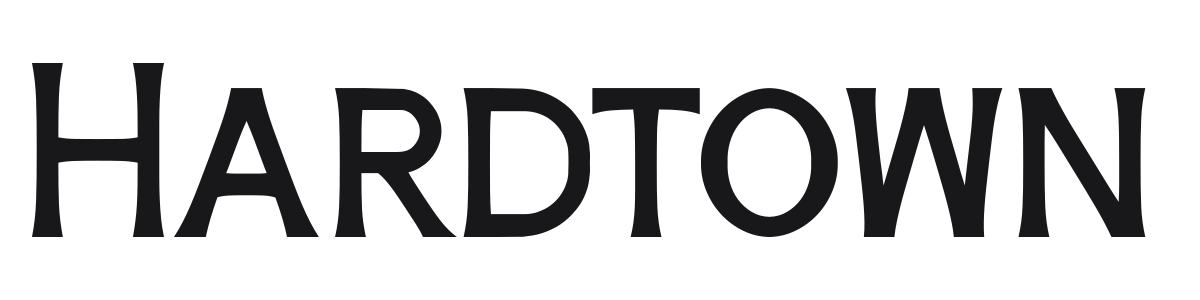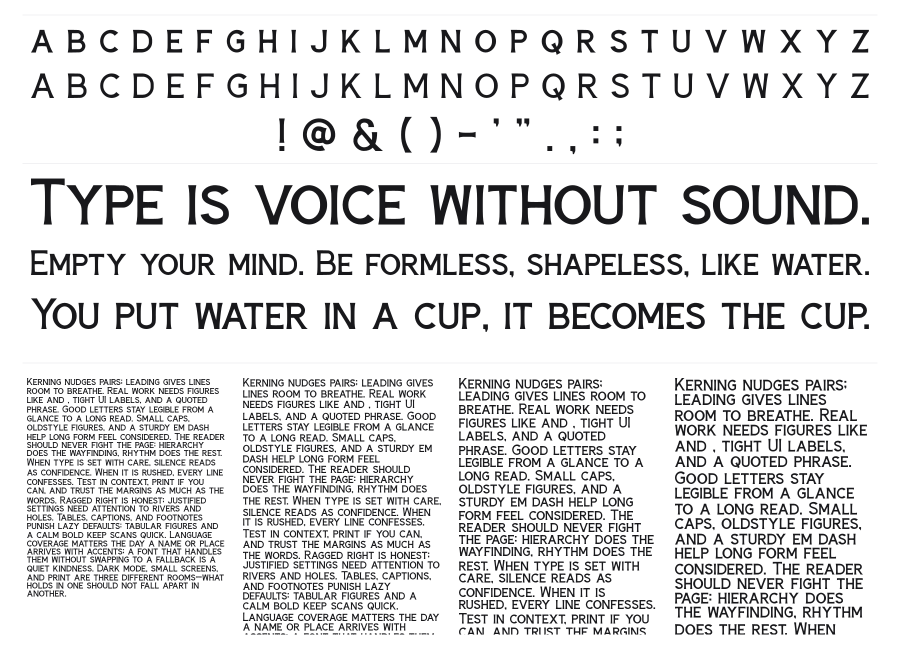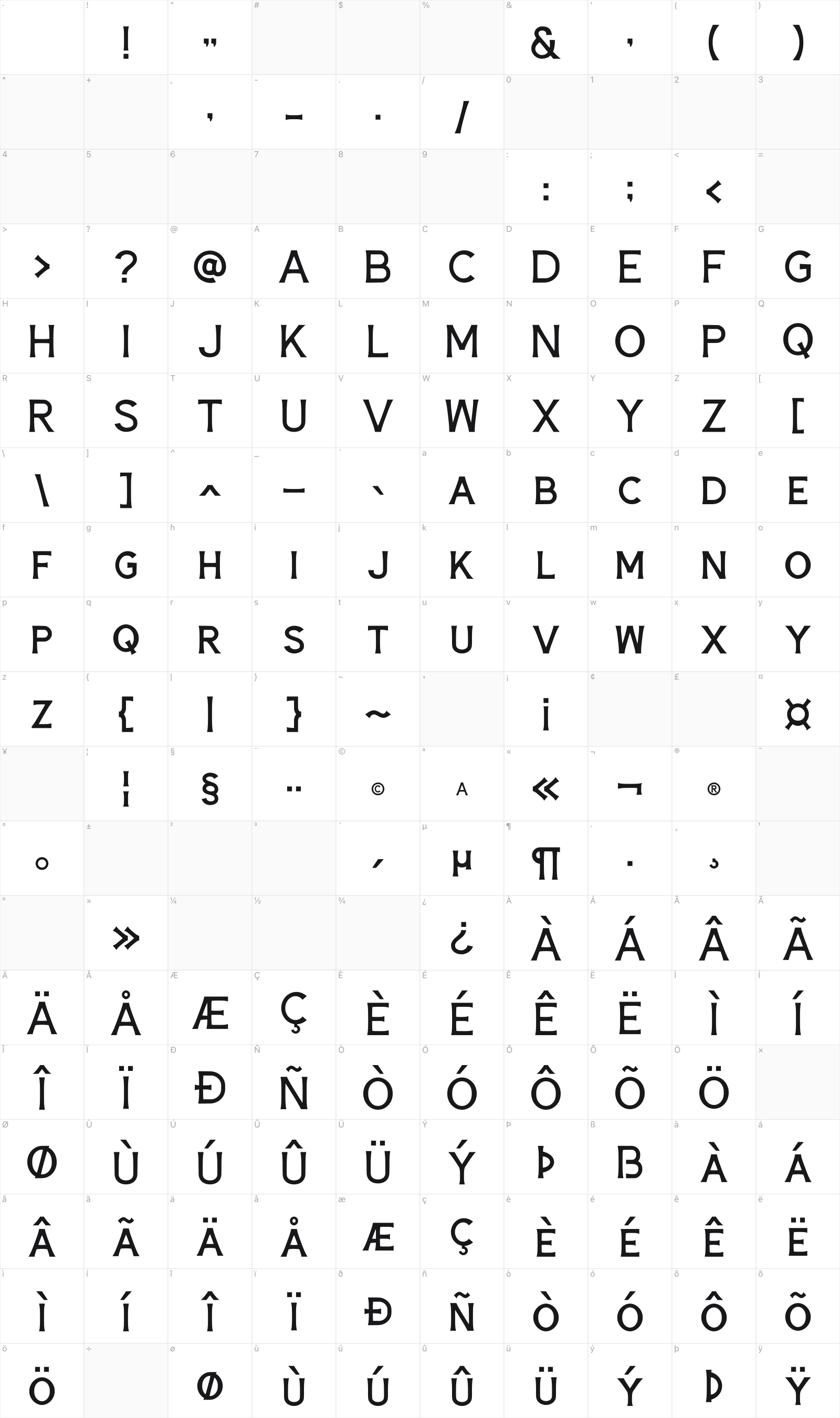
Hardtown
Hardtown is a bold vintage sans-serif with a sturdy mid-century Americana character, built on wide proportions and blunt flat terminals. It draws from hand-painted signage and label traditions, giving headlines and packaging a rugged, authentic feel. The near-monoweight strokes keep it legible and punchy at large sizes.